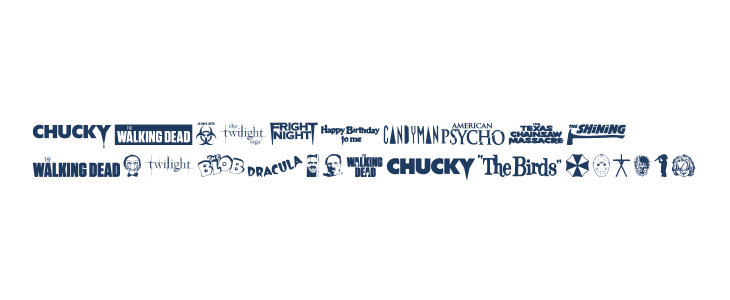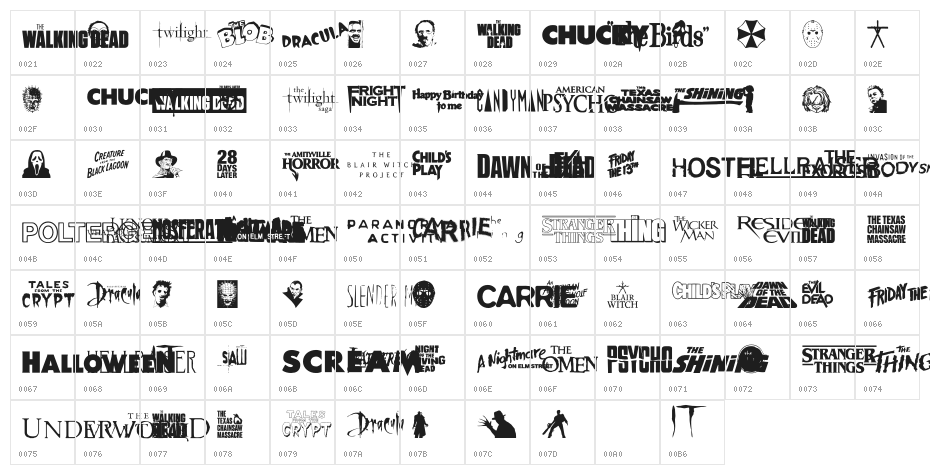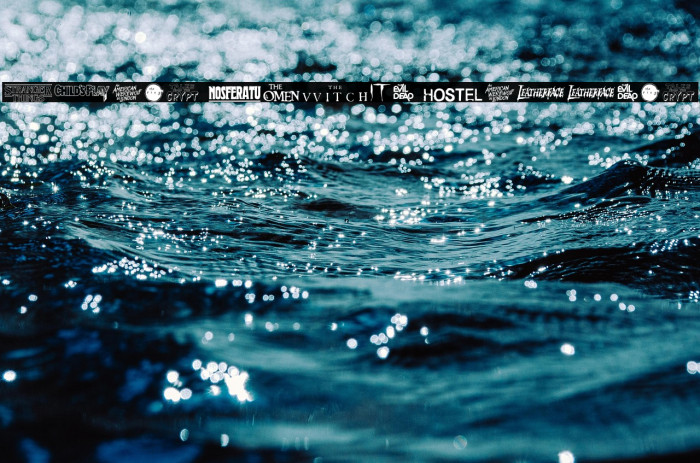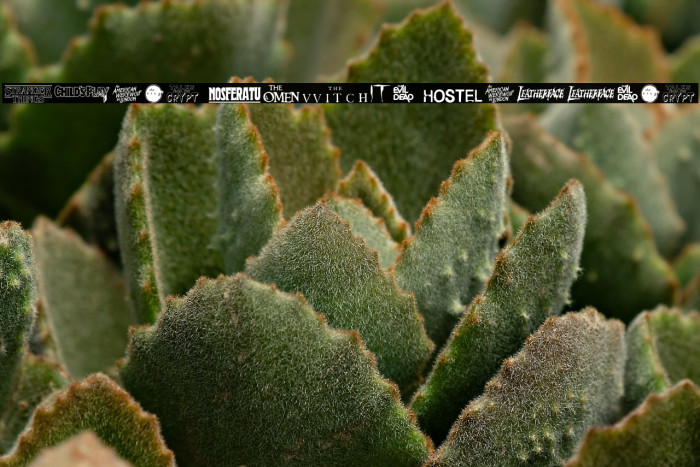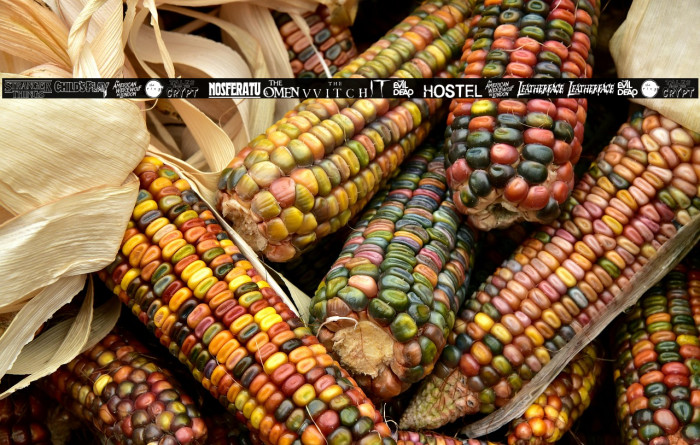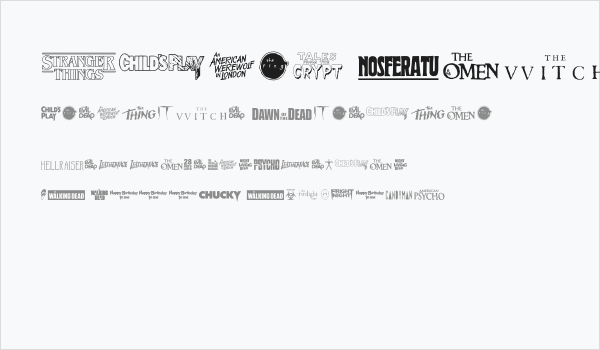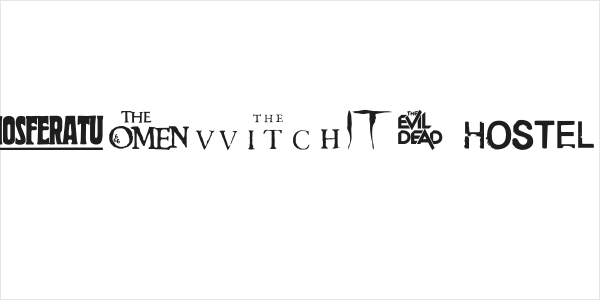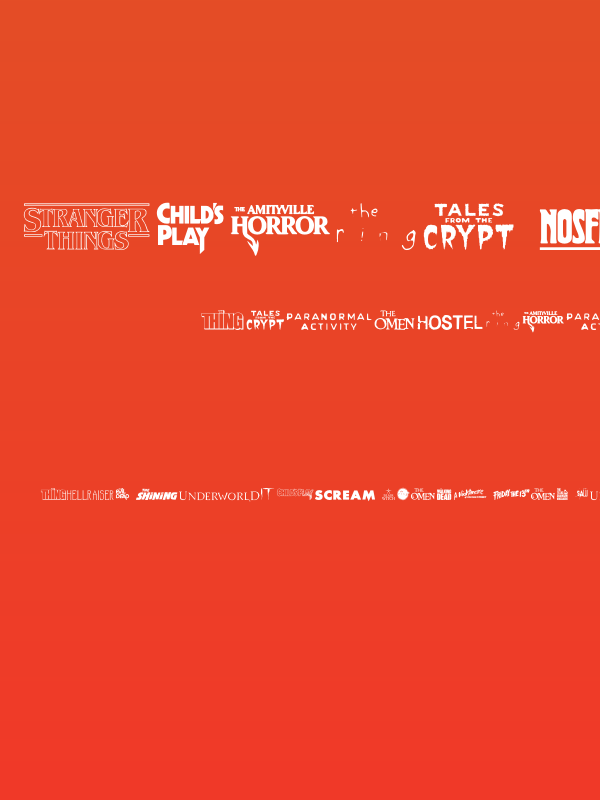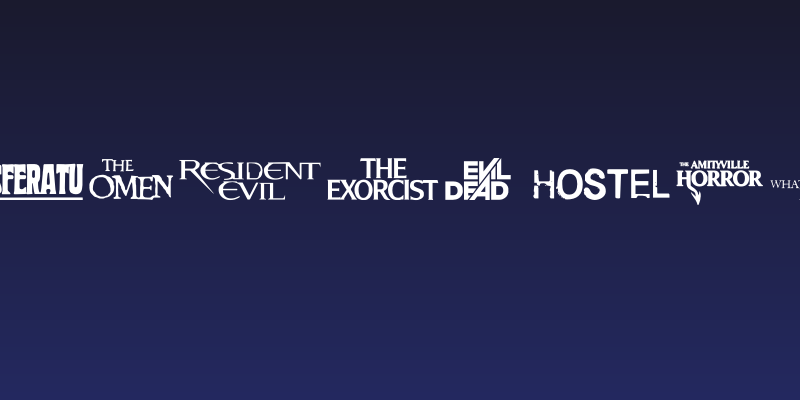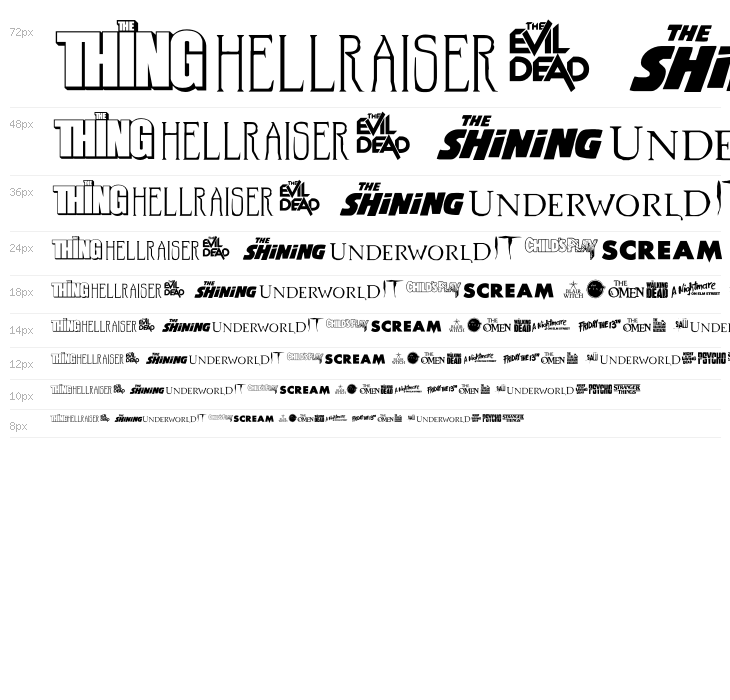
Scary Movie Gallery Font
Scary Movie Gallery Description
A highly decorative and varied collection of horror-themed display fonts, each with unique characteristics such as distressed textures, sharp edges, dripping effects, and bold, dramatic letterforms. The styles range from grungy and eroded to clean and geometric, evoking a sense of suspense, fear, and the supernatural. Many fonts incorporate thematic elements like blood drips, scratches, or gothic flourishes, making them visually striking and evocative of classic and modern horror aesthetics.
| Overall Style | Decorative, Horror, Vintage, Modern |
| Use Case | Headlines, Logos, Posters, Themed Graphics |
| Proposed Projects | Movie posters, Halloween event flyers, haunted house branding, book covers, video game titles, themed party invitations. |